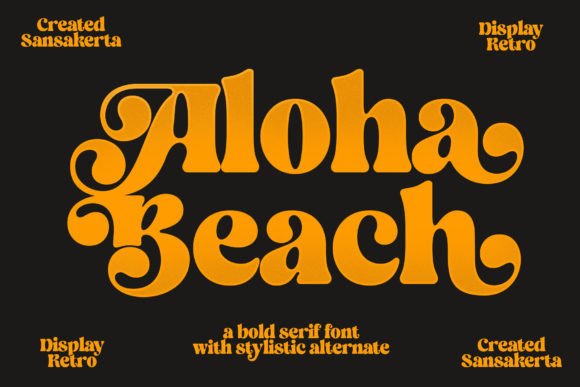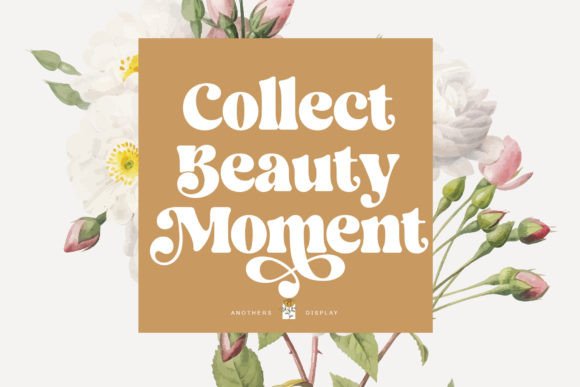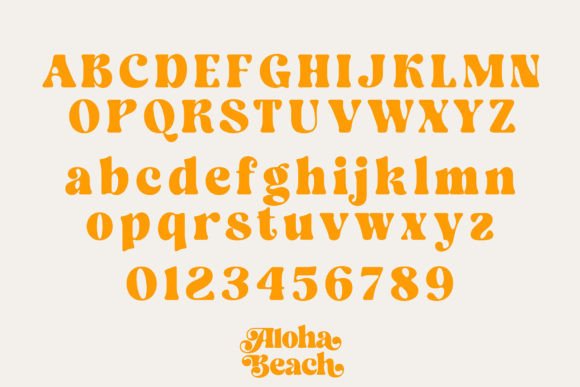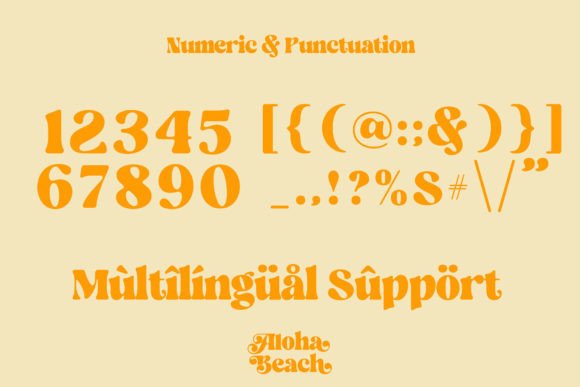
Aloha Beach is a fun, retro groovy display font reminiscent of the swinging 60s. Its bold strokes and playful curves evoke a sense of vintage charm and nostalgia. Perfect for posters, album covers, and retro-themed designs, Aloha Beach adds flair and personality to any project with its timeless appeal.
Aloha Beach Font